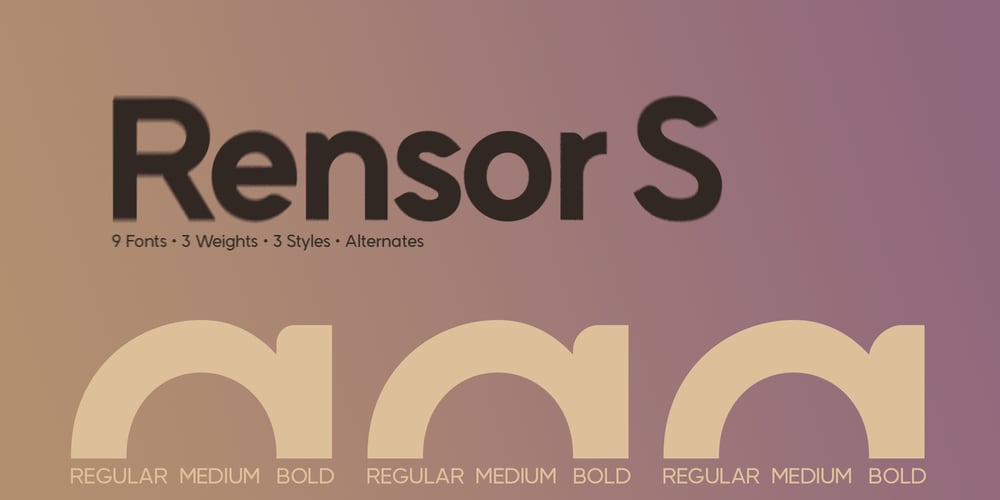
Rensor S Font Family was designed by Stanislav Hatznik and published by Smartfont. Rensor S contains 9 styles and family package options. Rensor S is minimalist font with smooth and elegant rounded edges. It has been designed with a clean, modern design aesthetic.Rensor S is perfect for poster design, ui design, mobile apps, branding and logo development, wayfinding and signage, digital art and much more.